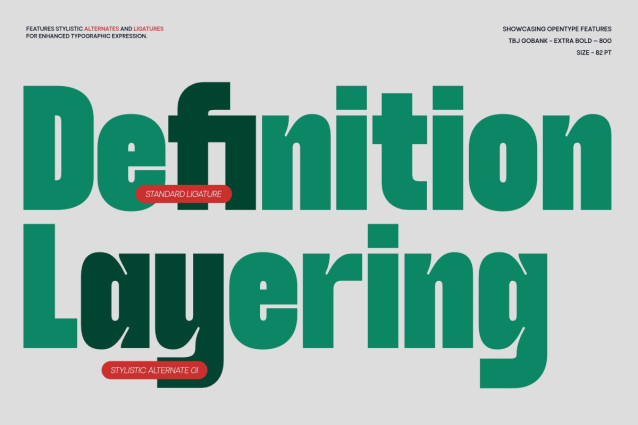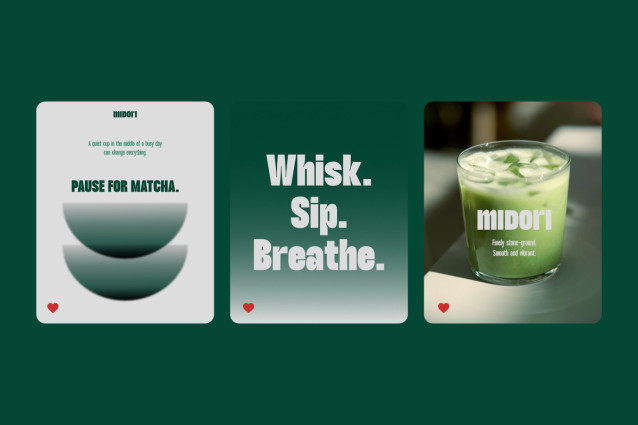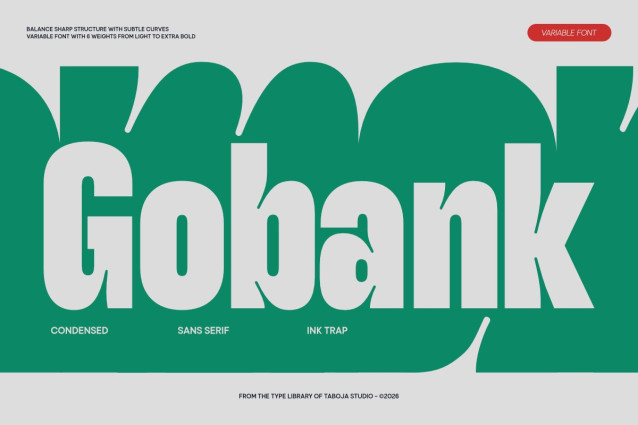
TBJ Gobank Font
TBJ Gobank Font is a condensed sans serif typeface designed to bring strength, clarity, and modern character into contemporary visual communication. Its tall proportions and soft inktrap details create a distinctive rhythm while maintaining strong readability across both large headlines and structured layouts.
Built as a professional font family with Latin Pro language support, TBJ Gobank balances compact structure with subtle rounded inktrap cuts that improve optical balance and give the typeface a refined personality.
Designed for branding, headlines, posters, editorial layouts, sports visuals, and digital campaigns, TBJ Gobank delivers a confident condensed voice while remaining clean and versatile for modern design systems.